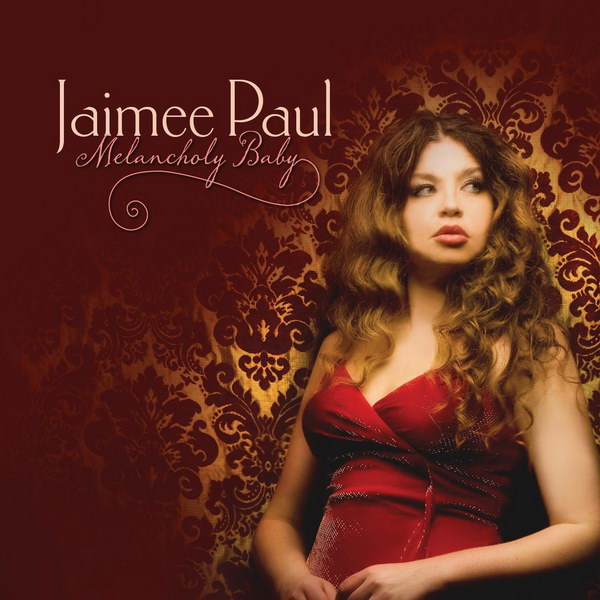
Melancholy Baby Font
Fonts in UseMelancholy Baby is a jazz album by Jaimee Paul, released in 2014. It features Paul's sultry vocals and arrangements of classic standards, including "The Nearness of You" and "Summertime."
On the album cover, the name "Jaimee Paul" appears to be written in Carlton, a font produced by Letrset in 1994. The album title, "Melancholy Baby," is likely written in Memoir, a commercial font designed by Stephen W. Rapp based on 18th century handwritten letters, journals, and documents.